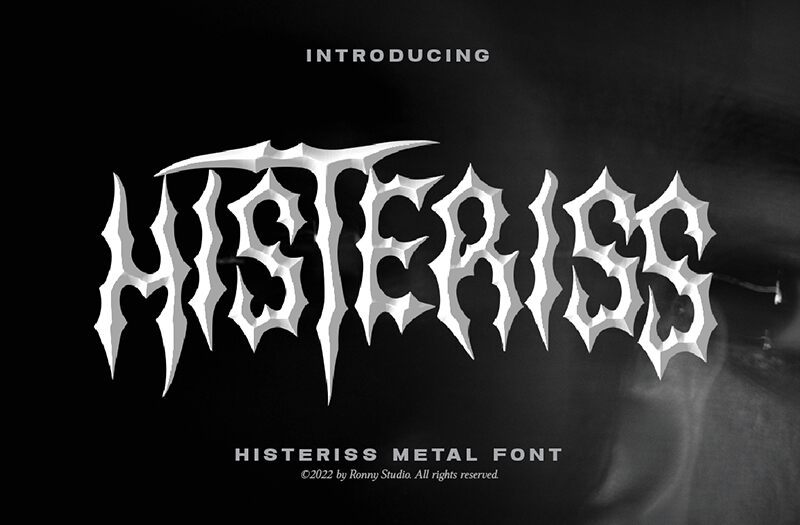
Histeriss by Ronny Studio is a captivating modern gothic font that exudes an undeniable sense of eeriness and intrigue. With its distinct condensed shape and razor-sharp serifs, this typeface effortlessly evokes a foreboding atmosphere, seamlessly blending the allure of the macabre with a touch of contemporary flair. The bold, angular letterforms and haunting negative spaces create a striking visual impact, inviting the viewer to delve deeper into its mysterious essence.
This versatile font shines in a variety of design applications, from horror-themed media and spooky event branding to atmospheric editorial layouts and edgy fashion campaigns. Histeriss's commanding presence and unsettling vibe make it a standout choice for projects seeking to evoke a sense of suspense, mystery, or the supernatural.